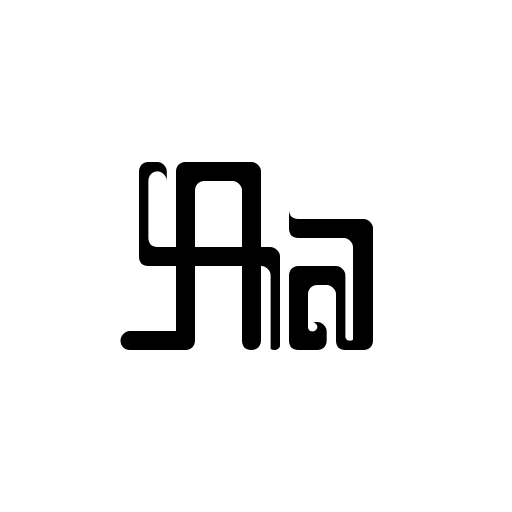
Awesome Java Font is a futuristic, narrow sans serif typeface with a highly geometric and ornamental style. Its tall, condensed letterforms feature intricate, circuit-like detailing that gives it a tech-savvy, digital vibe, making it ideal for use in technology branding, sci-fi designs, or retro-futuristic projects. This unique font works best for eye-catching headlines or logos where a distinctive, experimental look is needed.
Awesome Java Font
About Awesome Java Font
| Font family | Awesome Java Font |
| Designer | Adien Gunarta |